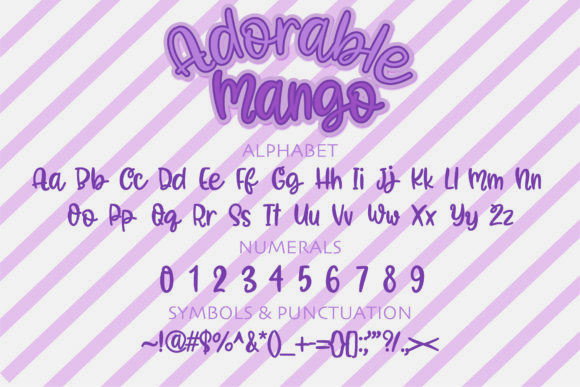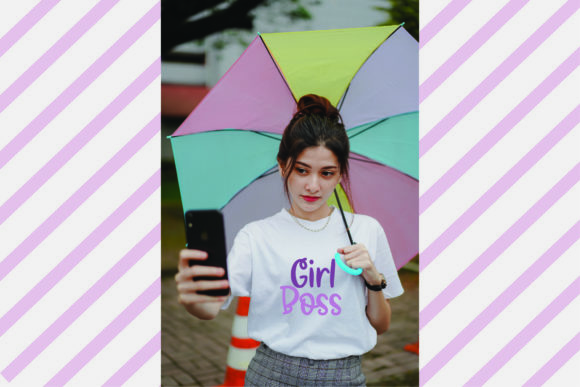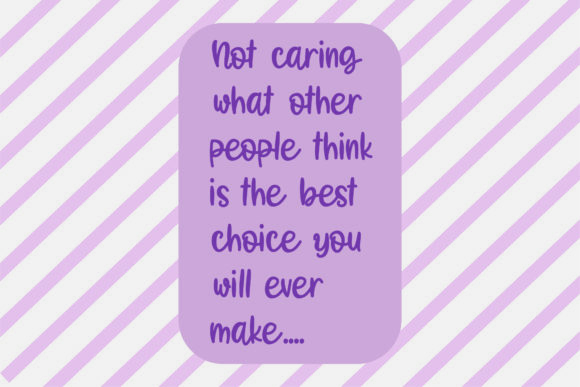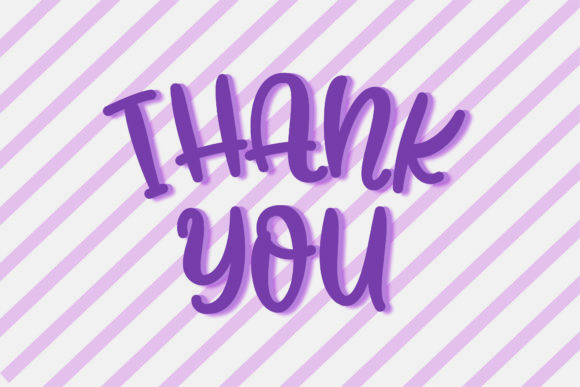
Discover the Sweet Charm of Adorable Mango Font
Have you ever stared at a blank page, waiting for inspiration to strike? The cursor blinks, and your mind goes blank, but then – it happens. A spark of creativity ignites, and the words start flowing. This moment is what drives designers like us to keep pushing the boundaries of our craft.
One of the most crucial tools in our arsenal is the right font. That’s where the Adorable Mango Font comes in – a whimsical script font that adds a touch of relaxed charm to any creation. Whether you’re designing a brand identity, a social media post, or a digital artwork, this font is sure to elevate your project and leave a lasting impression. The Adorable Mango Font is a valuable addition to any designer’s library, offering endless possibilities for creative expression.
Key Features of Adorable Mango Font
- Font Family: Adorable Mango is a unique, handwritten font that offers a wide range of expressive characters, perfect for creating eye-catching designs.
- Font Size: The font comes in a range of sizes, from 12pt to 72pt, making it suitable for various design applications, including headings, body text, and titles.
- Resolution: Designed to be high-resolution, Adorable Mango is ideal for printing and digital applications, ensuring crisp and clear text at any size.
- Unique Characteristics: This font features a playful, cursive script with irregular strokes and subtle imperfections, giving it a hand-drawn feel that adds a touch of personality to any design.
Designer Review: Adorable Mango Font
Overall, I think Adorable Mango Font is a great addition to any designer’s toolkit. It’s got a certain je ne sais quoi that sets it apart from more generic fonts.
- ✨ Unique and playful feel – Adorable Mango Font is perfect for designs that need a bit of whimsy.
- ✨ High-quality glyphs – the font looks crisp and clear on various devices.
- ✨ Versatility – it works well for both digital and print designs.
- ⚠️ Limited font sizes – the font may not be as legible at very large or very small sizes.
- ⚠️ Not ideal for formal or professional designs – Adorable Mango Font is best suited for more casual or creative projects.
- ⚠️ Limited language support – the font may not have the same level of language support as more comprehensive fonts.
In conclusion, Adorable Mango Font is a fun and versatile font that’s perfect for designers looking to add a bit of personality to their projects. While it may have some limitations, I think it’s definitely worth considering for the right type of design.
Getting the Most Out of Adorable Mango Font
Adorable Mango Font is best used for playful and creative designs. To get the most out of it, try combining it with bold and bright colors, and use it in headings and titles to add a touch of whimsy to your designs.
Some common use cases for Adorable Mango Font include: creating invitations and party decorations, designing children’s books and educational materials, and adding a playful touch to brand identities and marketing materials.